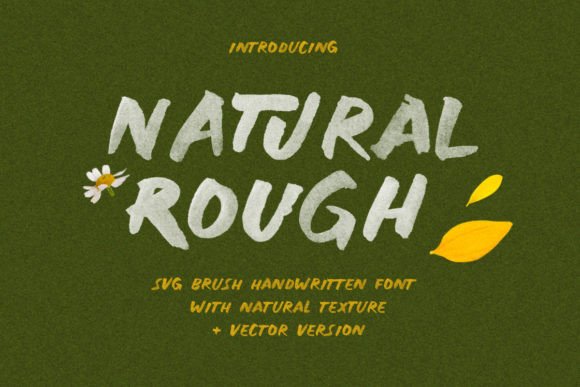
Introducing Natural Rough Font, the ultimate solution for anyone seeking the best font for personal notes. This stunning script font, created by the talented designers at letterhend, is the perfect choice for anyone looking to add a touch of elegance to their creative projects.
With its organic feel and charmingly hand-drawn appearance, Natural Rough Font is sure to captivate and delight. The flowing letterforms are graceful and effortless, making this font ideal for everything from invitations to logos to social media graphics.
One of the most exciting features of Natural Rough Font is its PUA encoding, which makes accessing all of the glyphs and swashes a breeze. This means that you can customize and personalize your projects with ease, adding a unique and personal touch to everything you create.
Whether you're a professional designer or just someone who loves to dabble in creative projects, Natural Rough Font is the perfect tool for unleashing your creativity. It's versatile, eye-catching, and sure to make your work stand out from the crowd.